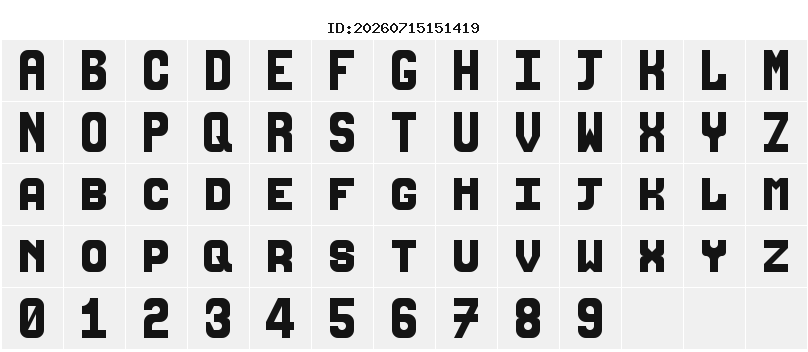
• Font Name: anandala
• Font ID: FontStruct anandala
• Full Font Name: anandala Regular
• PostScript Name: anandala
• Character Count: 99
• Copyright: Copyright Nadasson01 2011
• Designer: Nadasson01
• Description: “anandala” was built with FontStruct
About anandala.ttf
anandala.ttf is a modern, elegant sans-serif font designed for ultimate readability and visual harmony. Perfect for branding, headlines, web design, and print materials.